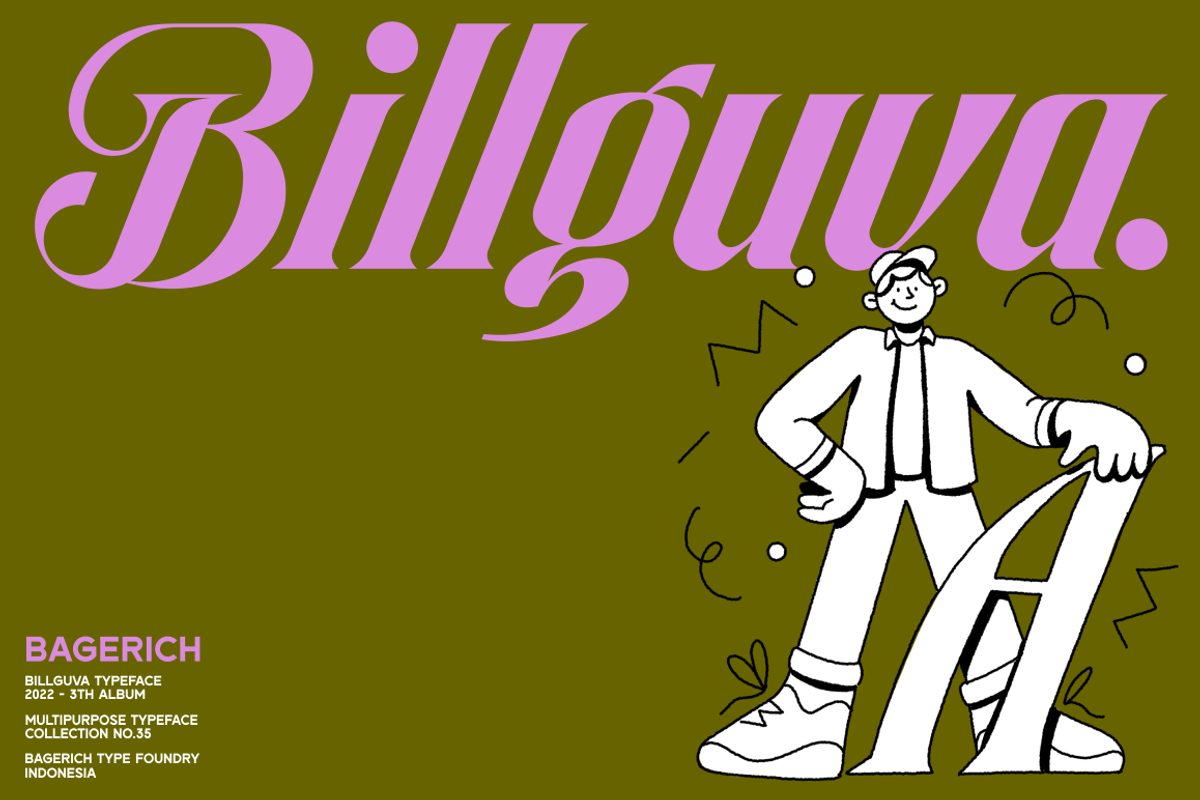
Billguva Typeface Free Download is a sophisticated and stylish serif font that blends modern elegance with classic letterform structure. Featuring sharp serifs, balanced proportions, and high-contrast strokes, this typeface is perfect for fashion branding, editorial design, luxury packaging, wedding invitations, and minimalist logos.
With its upscale, refined aesthetic, Billguva Typeface Free Download adds a professional and graceful tone to both print and digital projects. It shines in large displays but is also versatile enough for body text when paired thoughtfully with a clean sans serif.